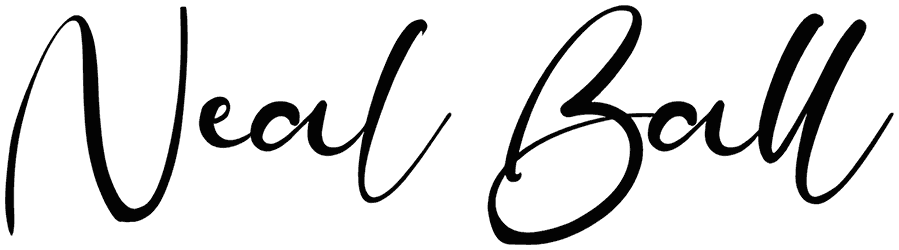
Neal Ball Font
If you have a unique design and want to give it more promotion, this handwritten font would be a perfect choice. Neal Ball consists of soft and elegant lettering and conveys a chic mood. With an almost full cover of characters, this calligraphy font will represent a nice item for any formal or informal projects, from Instagram posts to business cards.